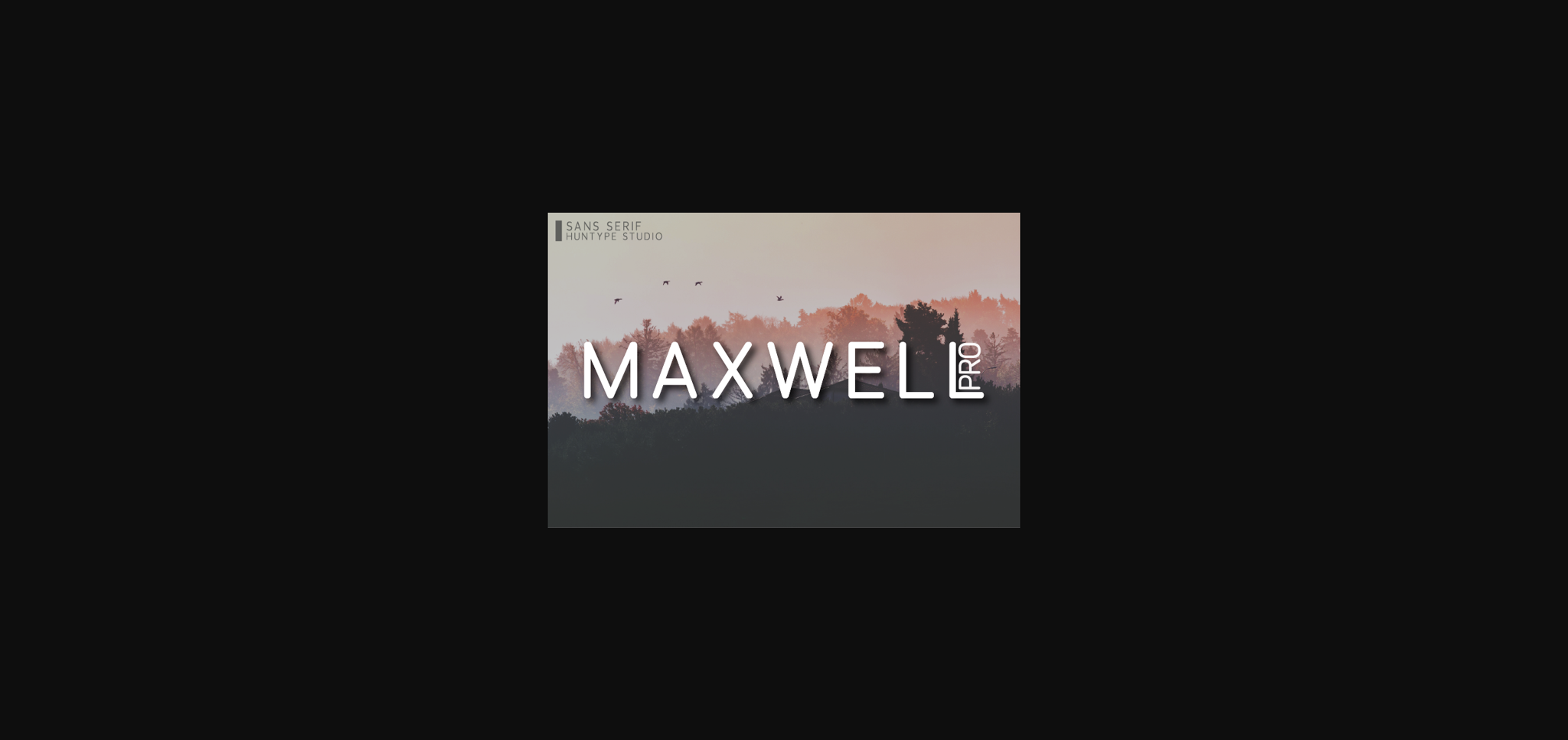
Maxwell is a minimalist sans serif font, fitting an extended number of contexts. Its simple and neat lettering style makes Maxwell the best choice for both formal and non-formal designs.